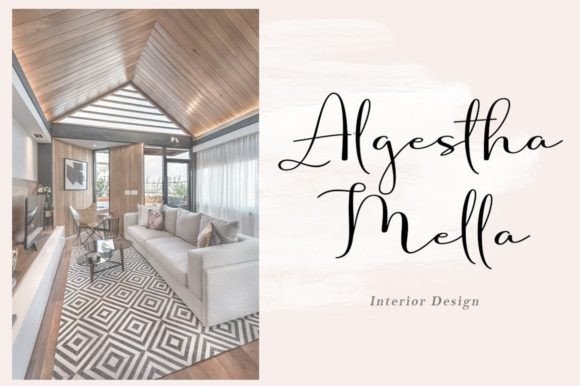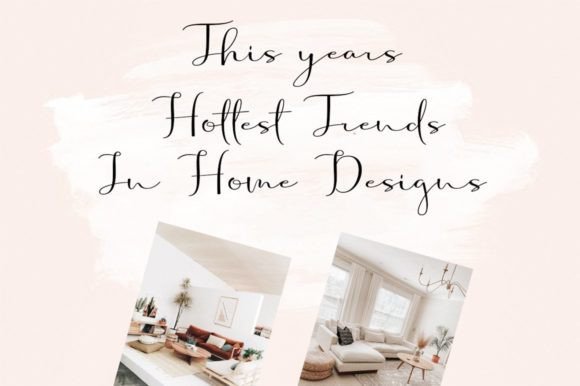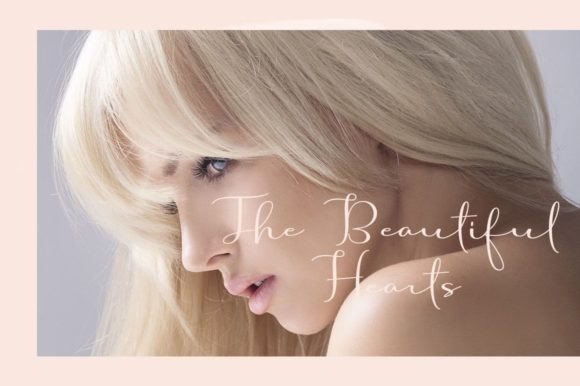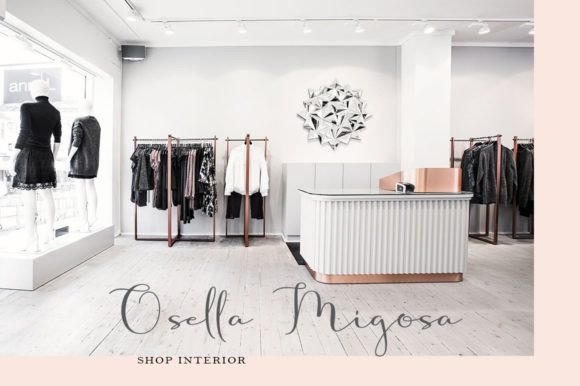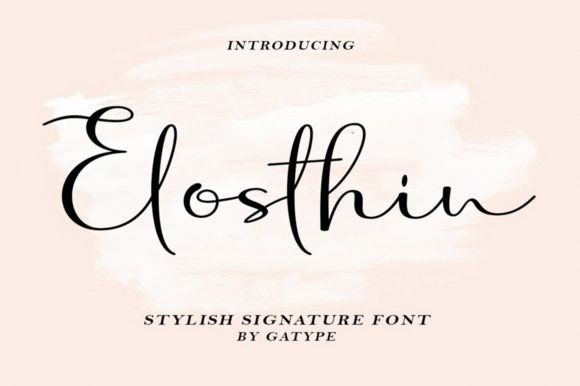
Discover the Charm of Elosthin Font: Elevate Your Designs with a Personalized Touch
In the world of typography, a font can make or break a design. It’s the perfect blend of style, legibility, and authenticity that can elevate a project from ordinary to extraordinary. If you’re on the hunt for a typeface that exudes sweetness and sophistication, look no further than Elosthin Font. This beautiful script font is designed to bring a personalized touch to any design project, making it a must-have for designers and crafters alike.
What Makes Elosthin Font Special?
Elosthin is more than just a font – it’s an experience. With its elegant and flowing script, it’s perfect for designs that require a touch of class and sophistication. Whether you’re working on a photography project, business card design, wedding invitation, or t-shirt design, Elosthin Font is the ideal choice. Its unique charm and character make it stand out from other fonts, ensuring your designs are always memorable and impactful.
One of the best things about Elosthin Font is its versatility. It’s suitable for a wide range of design projects, including:
- Photography: Add a touch of elegance to your photo captions, watermarks, or album covers.
- Business Cards: Make a lasting impression with a sophisticated and professional-looking business card.
- Weddings: Create beautiful wedding invitations, place cards, or ceremony programs.
- T-Shirt Designs: Add a personalized touch to your apparel designs with a unique and stylish font.
- Logos: Create a memorable and impactful logo for your brand or business.
- Magazines: Use Elosthin Font for article titles, headings, or quotes to add a touch of sophistication.
- Fashion: Elevate your fashion designs with a font that’s perfect for labels, packaging, or branding.
- Invitations: Create stunning invitations for parties, events, or celebrations.
- Signatures: Add a personal touch to your digital or handwritten signatures.
Elosthin Font is PUA (Private Use Area) encoded, which means you can access all the glyphs and swashes with ease. This feature makes it easy to customize your designs and add a personal touch. With PUA encoding, you can:
- Access a wide range of glyphs and swashes to enhance your designs.
- Easily customize your text with ligatures, alternates, and other special characters.
- Create unique and complex designs with minimal effort.
Why Choose Elosthin Font?
With so many fonts available, why choose Elosthin Font? Here are just a few reasons:
- Legibility: Elosthin Font is designed to be easy to read, making it perfect for body text or headings.
- Authenticity: This font has a unique and authentic feel that’s sure to make your designs stand out.
- Personalized Look: With its elegant script and swashes, Elosthin Font adds a personal touch to any design.
- Versatility: Use Elosthin Font for a wide range of design projects, from print to digital.